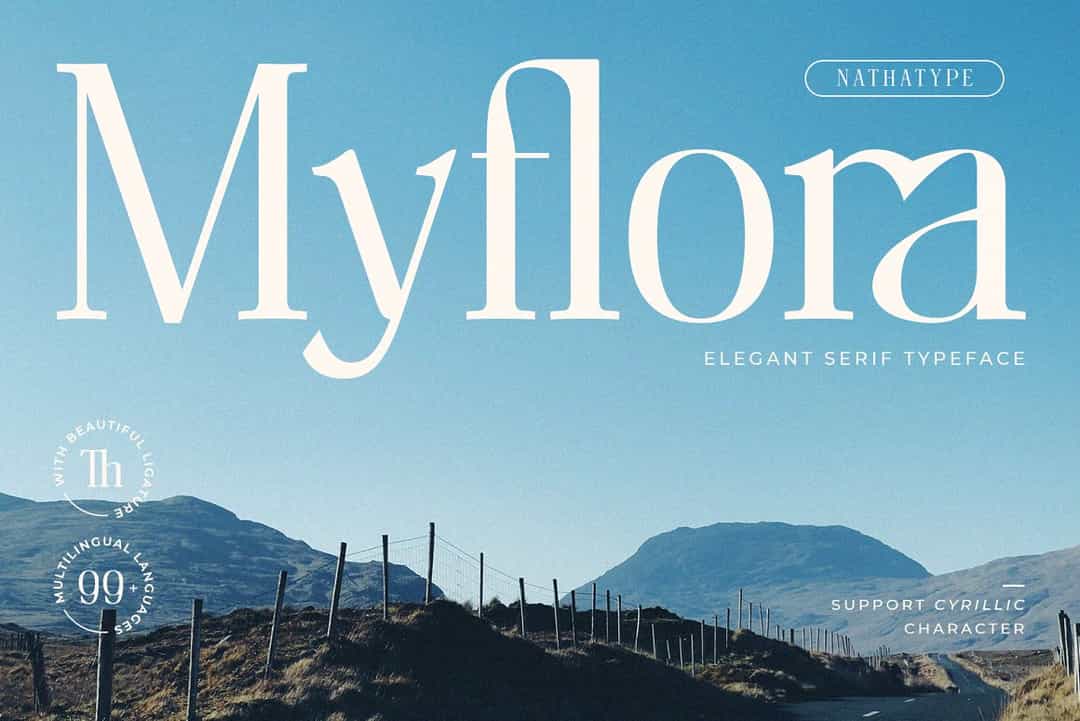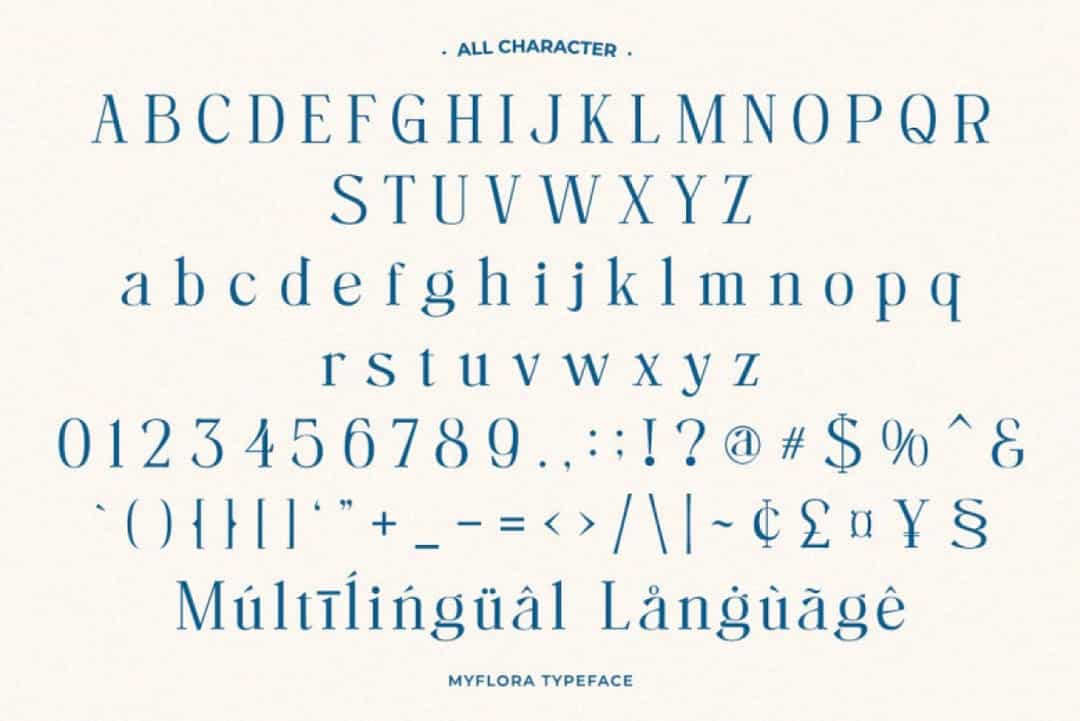
Myflora is an advanced serif typeface designed to create elegant, formal, contemporary impressions of your designs. Like other serif fonts, its primary feature are small hooks on the edges of letters which adds charm and dimension.